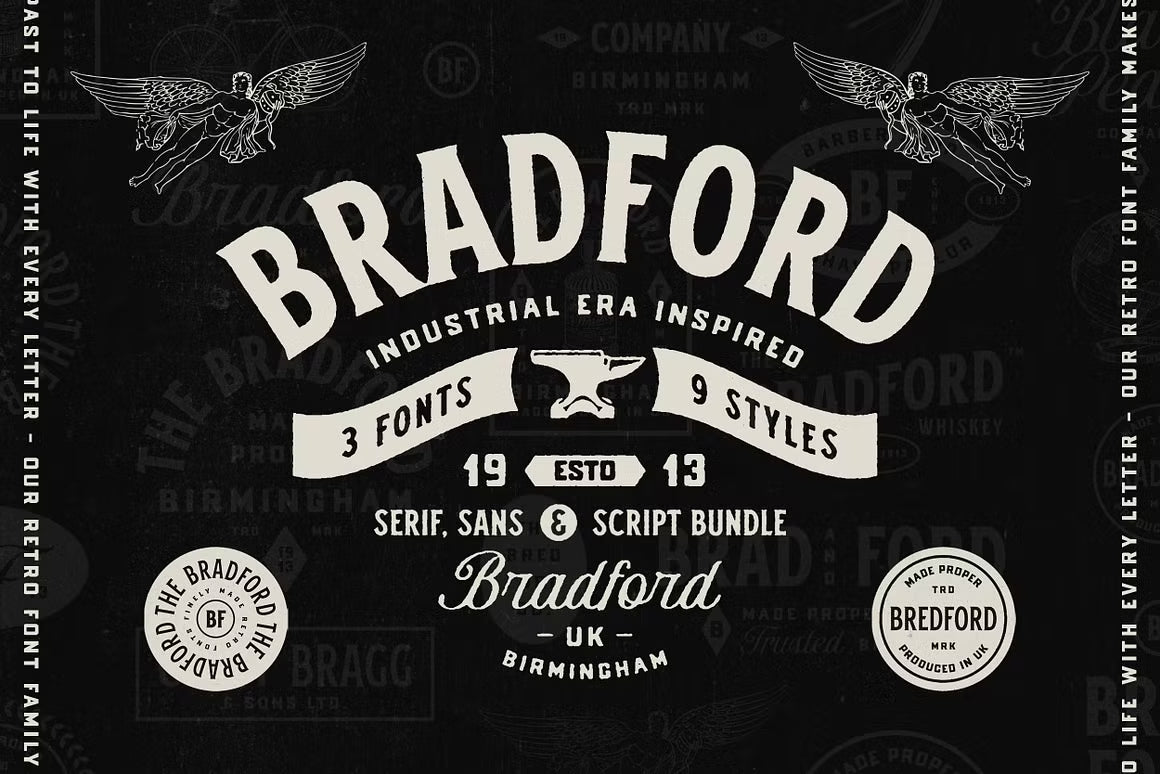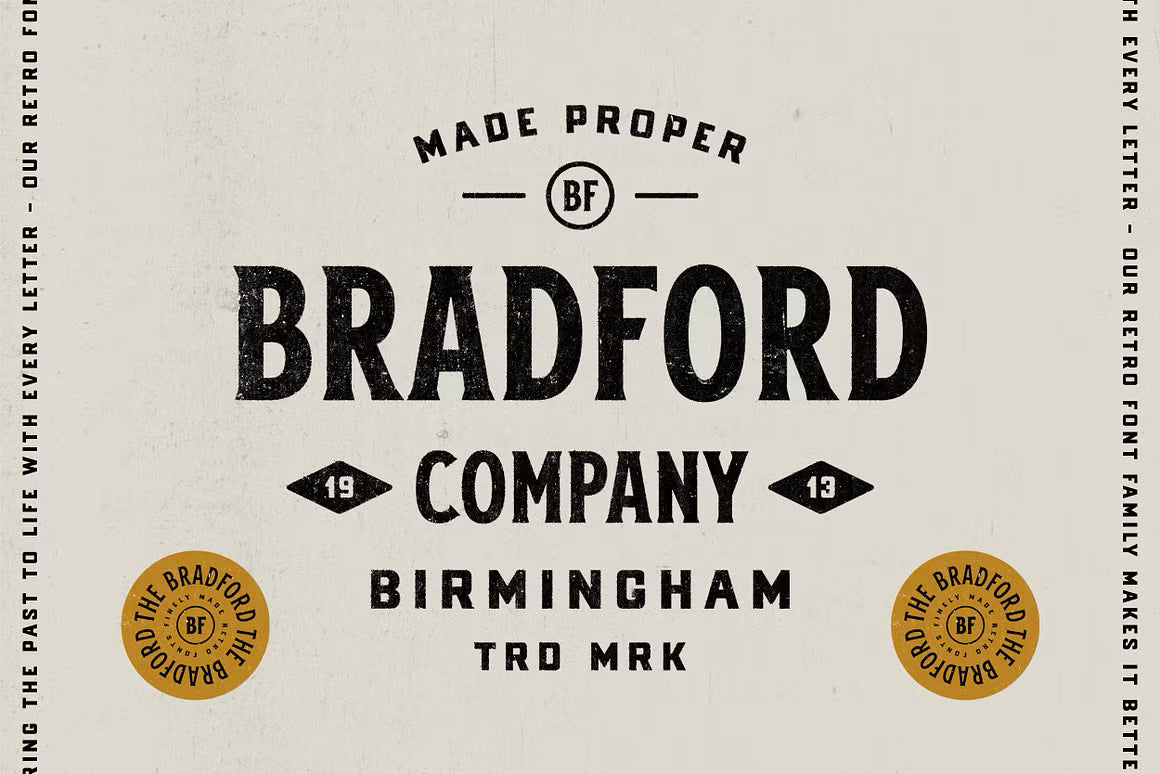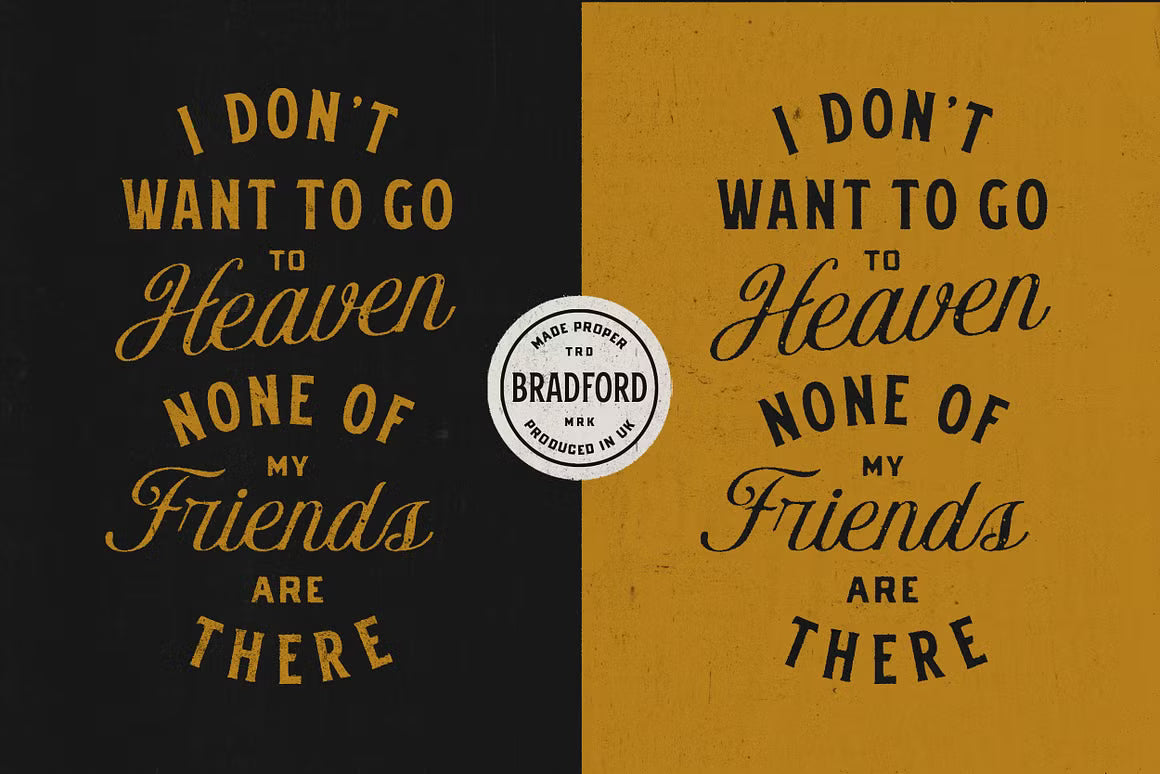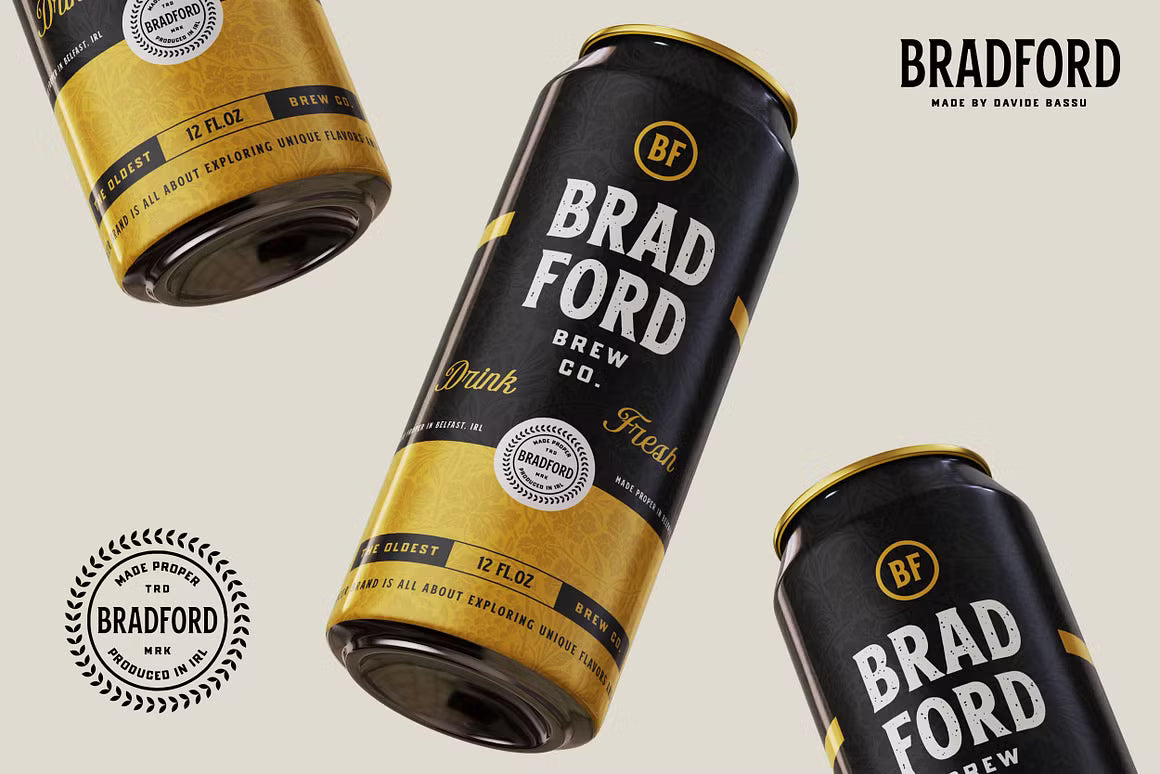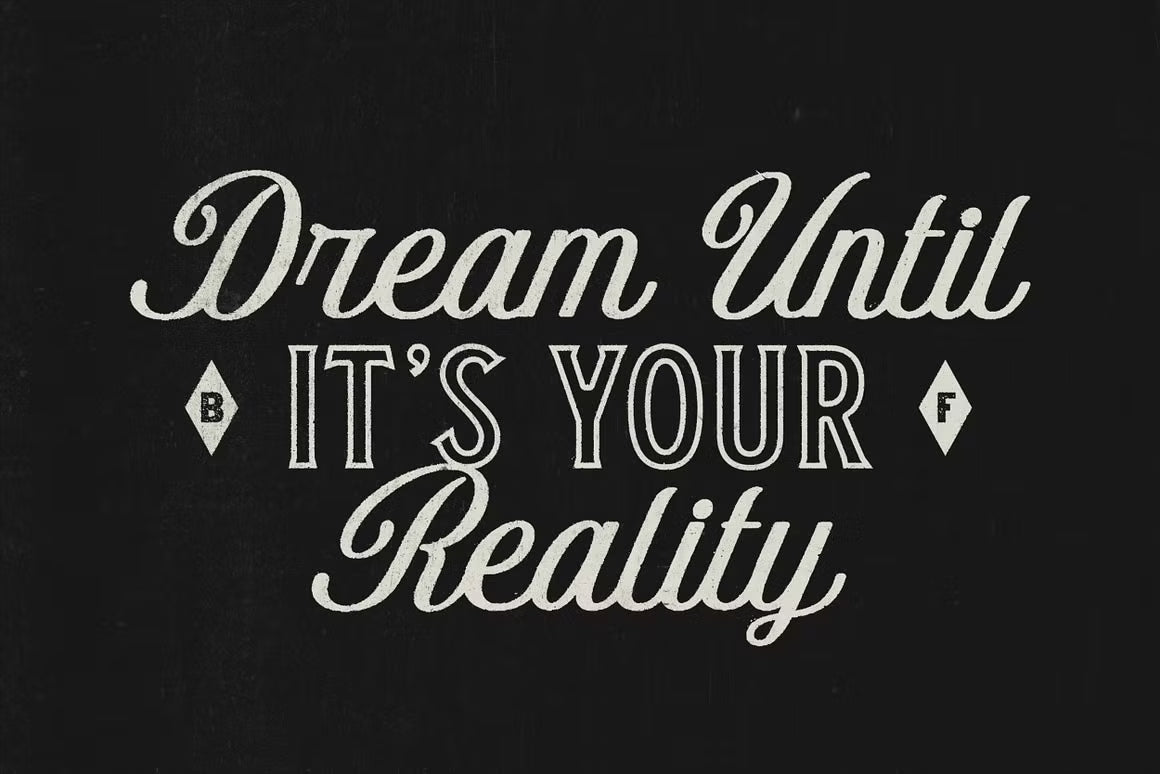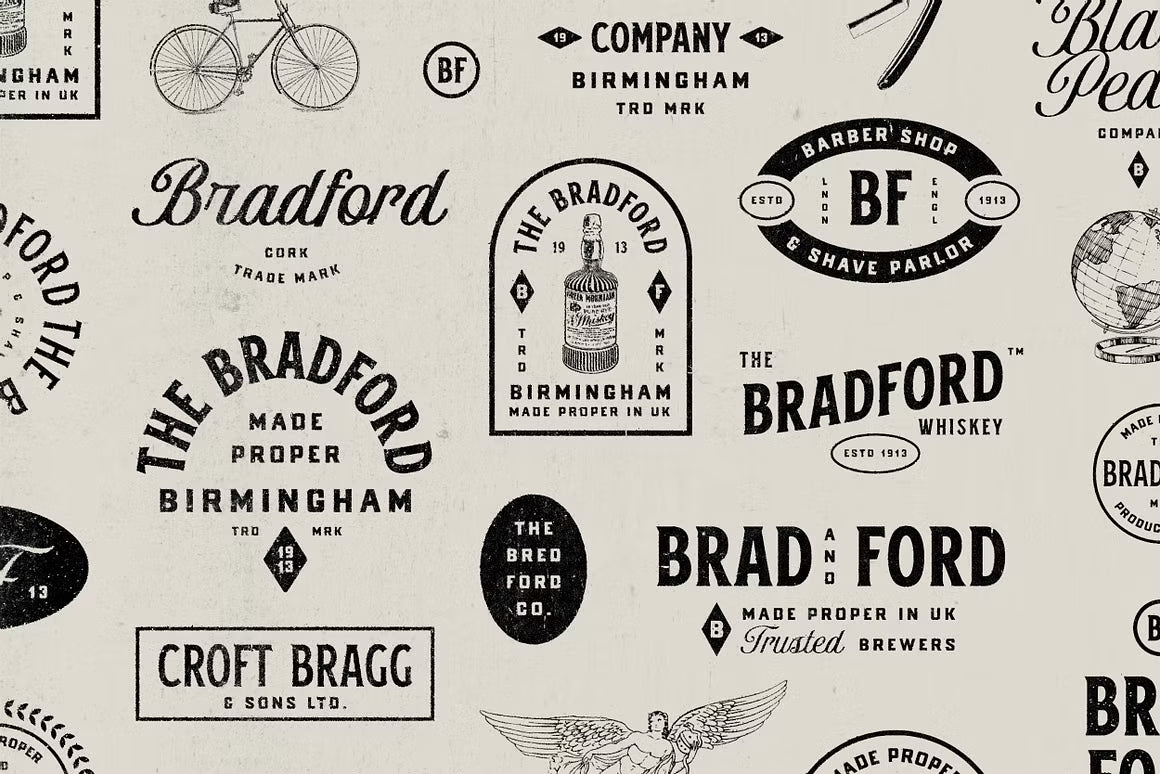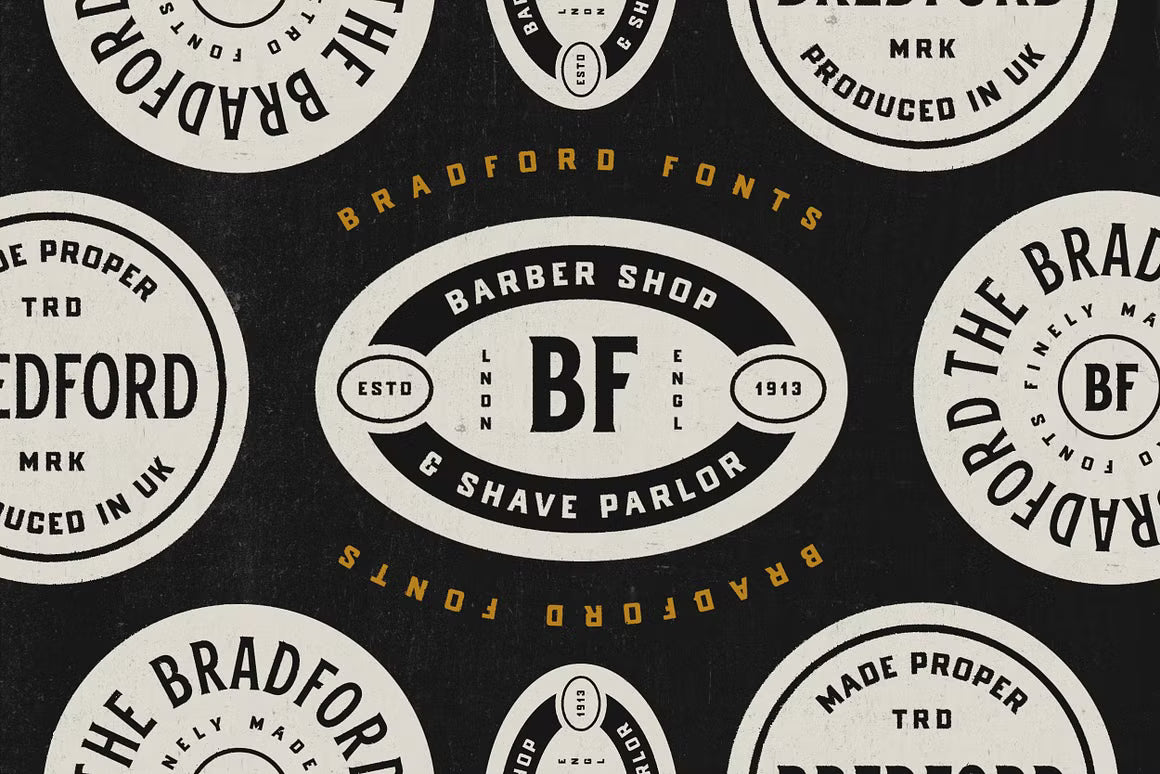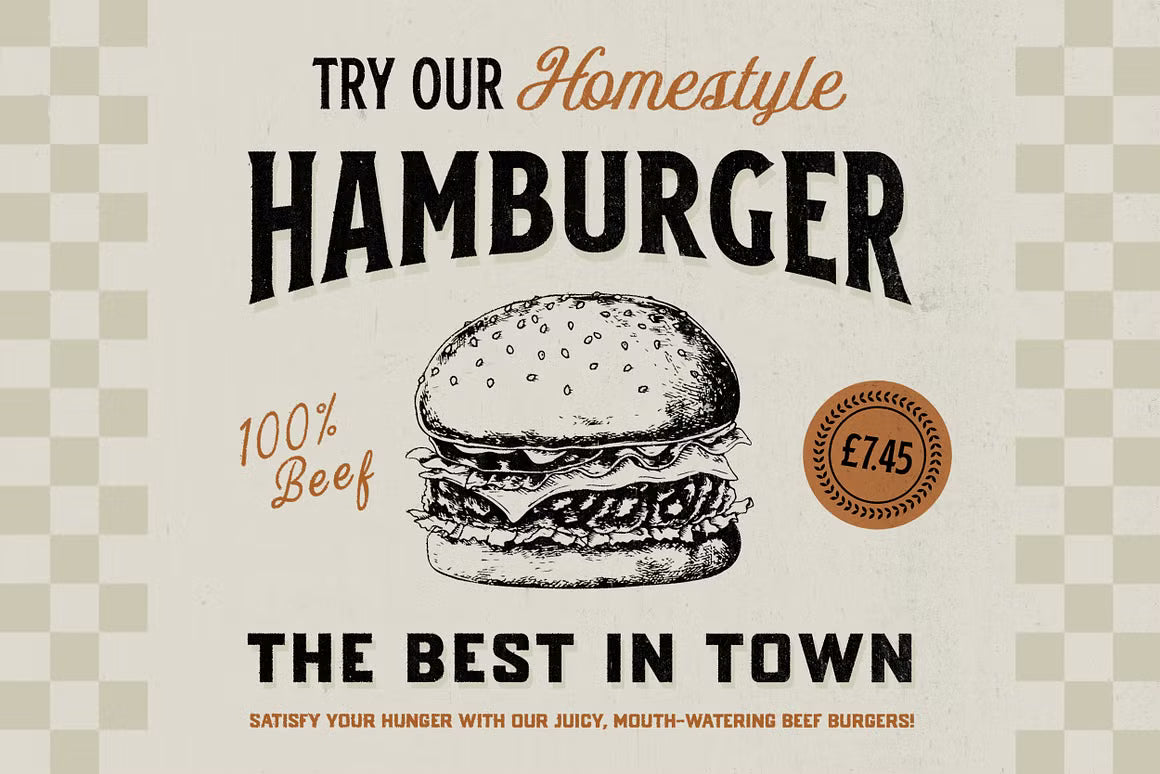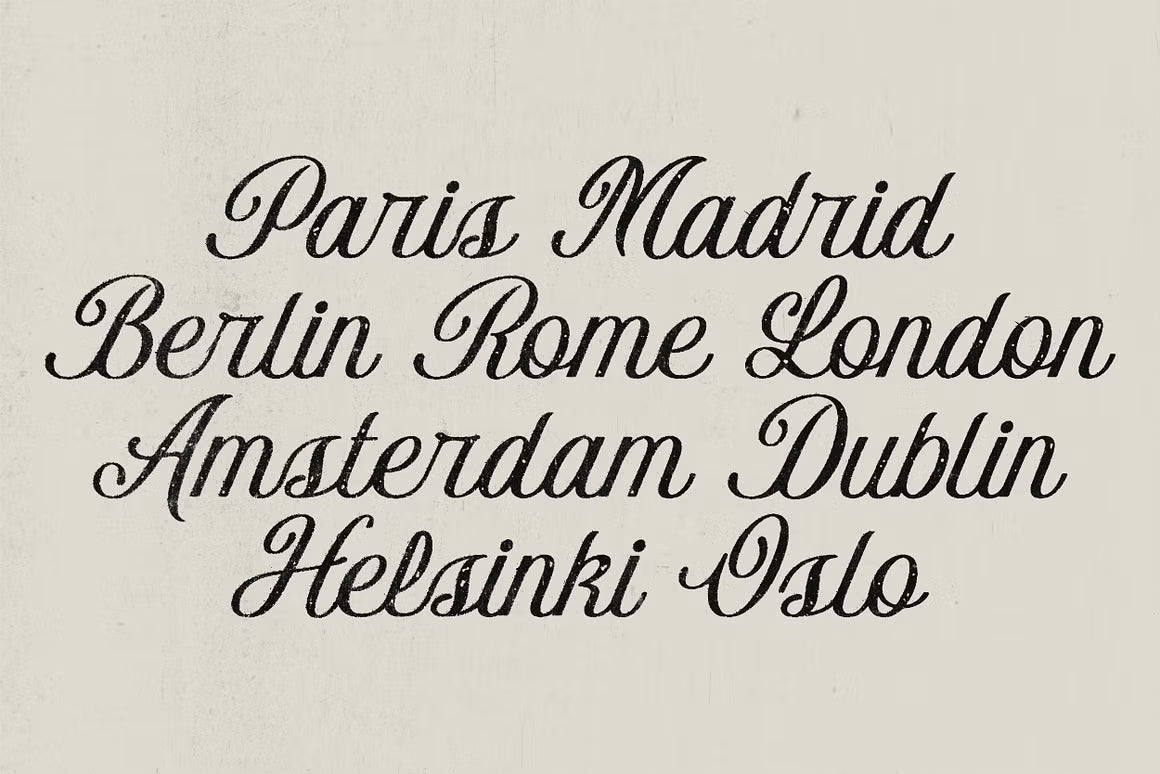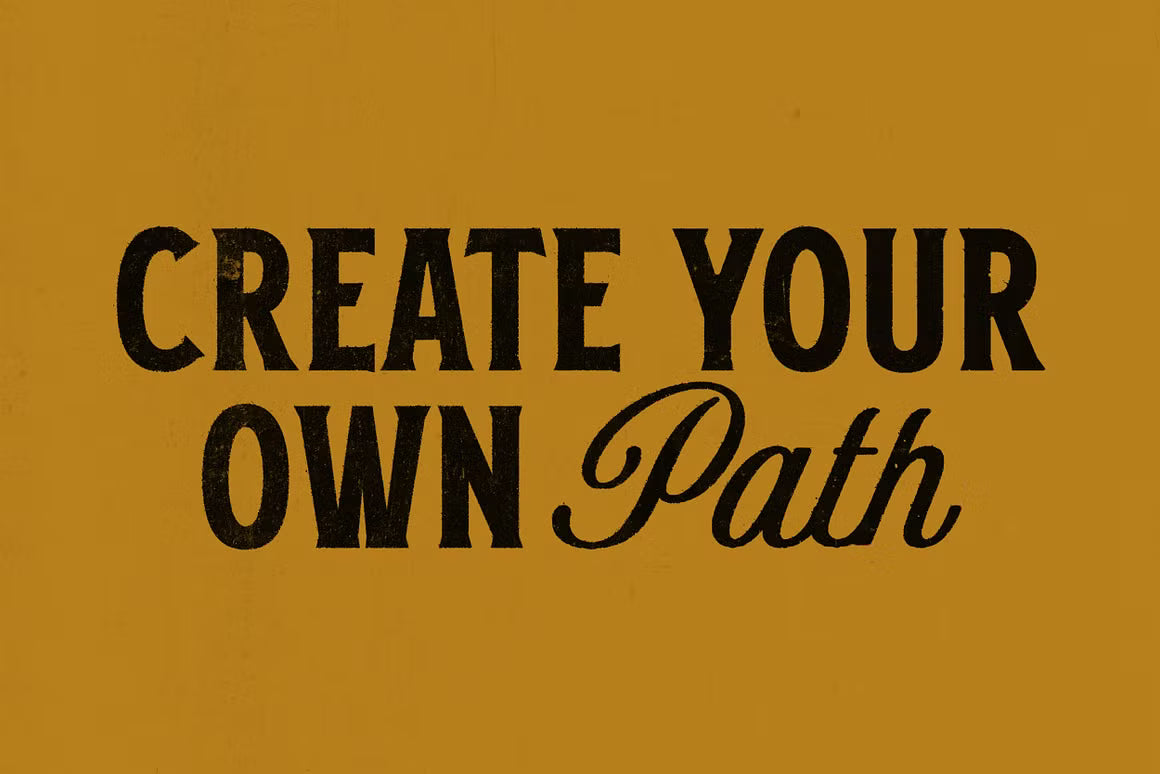
The Bradford Font Family is a versatile and timeless typeface collection that includes 3 distinct fonts (Script, Serif, and Sans Serif) with a total of 9 unique styles.
From elegant flowing Script with a hand-drawn feel, to bold classic Serif and clean Sans Serif options (including Aged variations), this family offers maximum flexibility for a wide range of projects — from logos and branding to headlines, body text, and apparel designs.
A complete, high-quality font family that belongs in every designer’s toolkit.
The Bradford Font Family